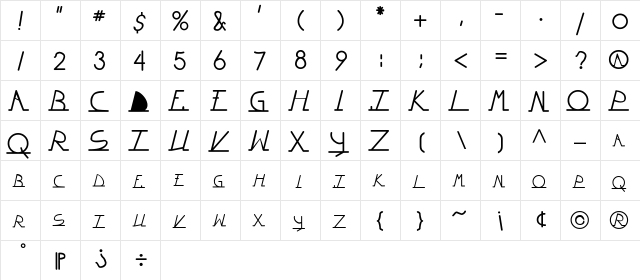
Wiltonian Regular
Design Context for Wiltonian Typeface
Wiltonian is a composed and adaptable typeface that performs quietly and consistently across a wide range of design contexts.